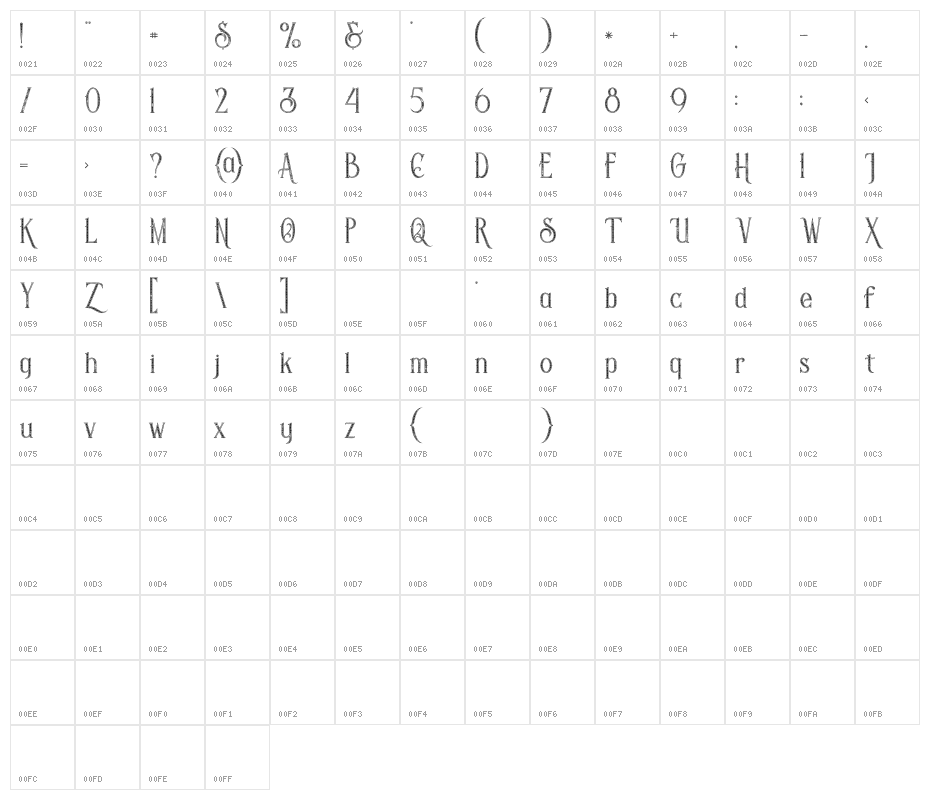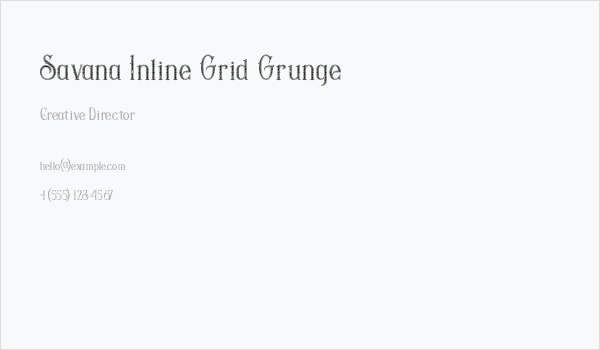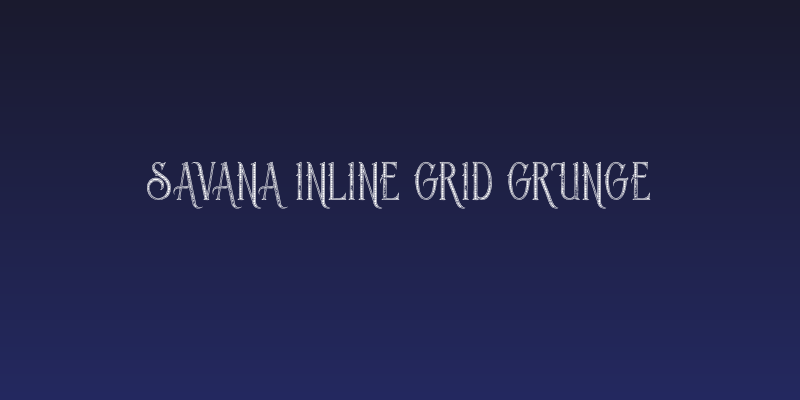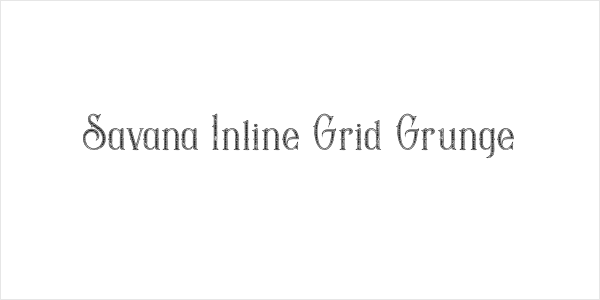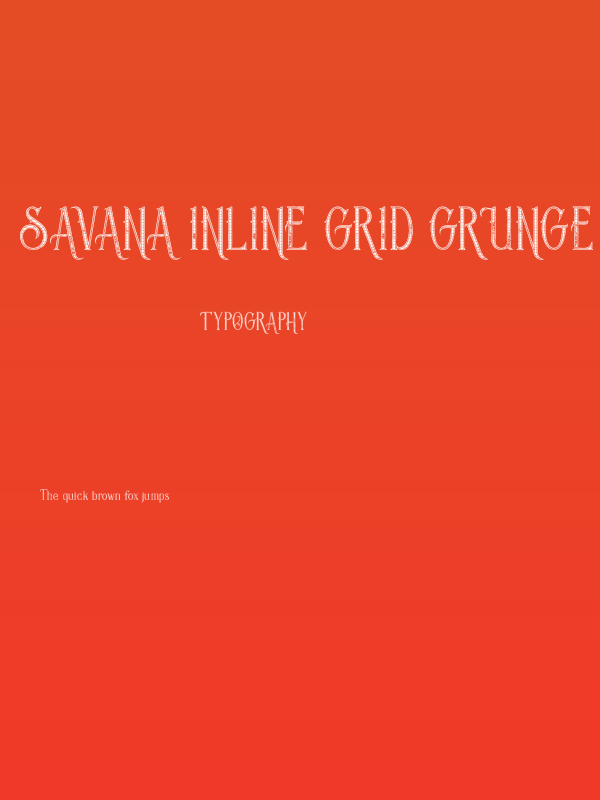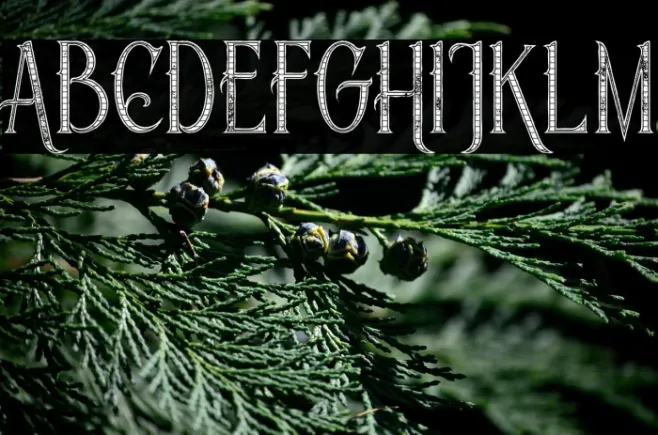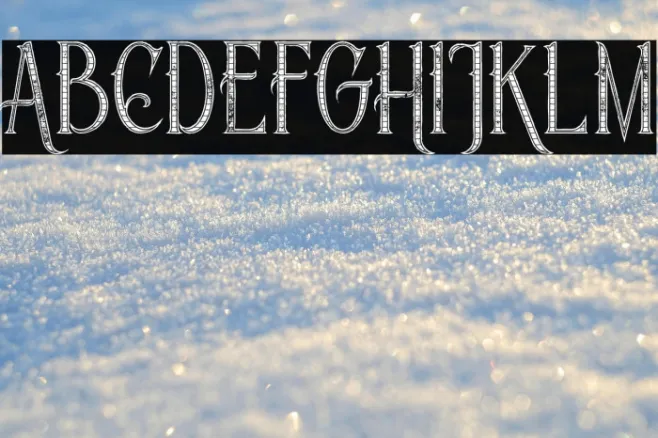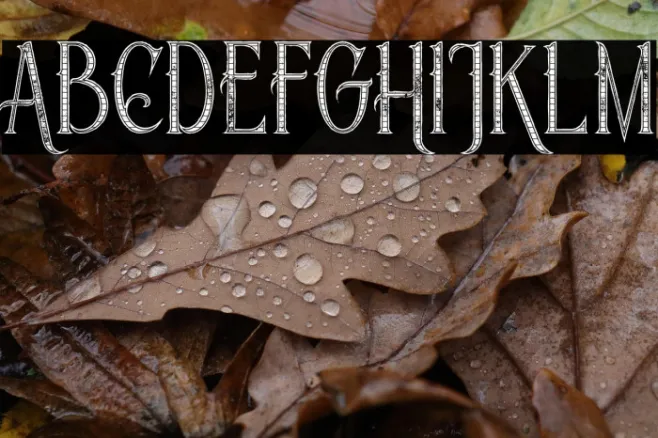
Savana Inline Grid Grunge Font
Savana Inline Grid Grunge Description
This font features a distinctive grunge style with an inline design, giving it a textured and artistic appearance. The uppercase and lowercase letters are elegantly elongated with unique serifs, adding a touch of sophistication. The numbers and special characters maintain the same grunge aesthetic, ensuring consistency throughout. The overall look is both modern and vintage, making it versatile for various creative projects. The intricate detailing within each character adds depth and character, making it stand out in any design.
| Overall Style | Grunge, Vintage |
| Use Case | Headlines, Logos, Artistic projects |
| Proposed Projects | Ideal for posters, album covers, branding, and artistic projects that require a bold and creative touch. |